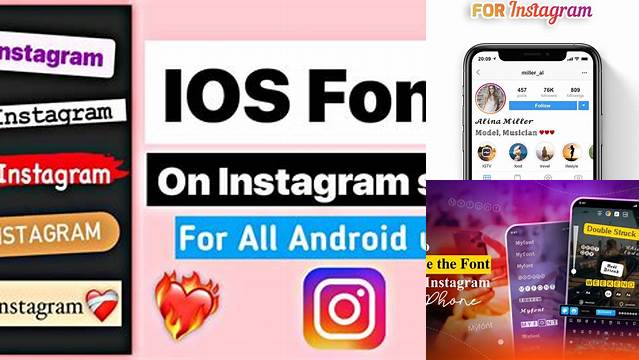
Cool Instagram Fonts: How To Use Them On Your IPhone
Hey guys! Ever wanted to spice up your Instagram game with some cool, unique fonts? You're in the right place! In this guide, we'll dive deep into the world of fonts for Instagram on iPhone. We'll cover everything from why fonts matter to how to actually use them. Let's get started!
1. Why Use Different Fonts on Instagram?
Okay, let's talk about why you should even bother with different fonts. In a sea of similar-looking posts, using unique fonts for Instagram on iPhone can make your content stand out. Think of it as adding a little bit of your personality to everything you share. Fonts can evoke different emotions and set the tone for your message, whether you're going for something fun and playful or serious and professional. Plus, it's a great way to keep your audience engaged and show off your creativity. Imagine scrolling through your feed and suddenly seeing a font that just grabs your attention – that could be your post!
2. Finding Fonts for Instagram Bio on iPhone
Your bio is like your Instagram storefront, and the fonts for Instagram on iPhone you choose play a big part in making a great first impression. You've got limited space, so make every character count! A stylish font can help highlight key information about you or your brand, making it more appealing to potential followers. The right fonts for Instagram on iPhone in your bio can also set you apart from the crowd, showing that you pay attention to detail and have a unique sense of style. Experiment with different fonts to find one that truly represents you.
3. Best Font Apps for Instagram Stories on iPhone
Instagram Stories are all about being creative and engaging, and using the right fonts for Instagram on iPhone can take your stories to the next level. There are tons of apps out there that offer a wide variety of cool fonts you can use. These apps often come with other features like templates, stickers, and animations, making it easy to create visually stunning stories that grab attention. Check out apps like Canva, Adobe Spark Post, and Hype Type for some awesome options.
4. How to Change Fonts on Instagram Captions Using iPhone
Captions are your chance to tell a story and connect with your audience. Using different fonts for Instagram on iPhone in your captions can help emphasize certain points, create a mood, or simply add some visual interest. While Instagram doesn't let you directly change fonts within the app, there are workarounds! You can use online font generators or third-party apps to create your text with the desired font, then copy and paste it into your caption. It's a simple trick that can make a big difference.
5. Cool Fonts for Instagram Posts on iPhone
Your posts are your main content, so choosing the right fonts for Instagram on iPhone is crucial. You want something that's not only visually appealing but also easy to read. Consider the overall aesthetic of your feed and choose a font that complements it. Script fonts can add a touch of elegance, while bold fonts can make a statement. Experiment with different options to see what works best for your content.
6. Using Font Generators for Instagram on iPhone
Font generators are super handy when it comes to finding unique fonts for Instagram on iPhone. These online tools let you type in your text and then generate it in a variety of different fonts. You can then copy and paste the text into your Instagram bio, captions, or stories. Some popular font generators include LingoJam, Cool Symbol, and FontGet. They're easy to use and offer a wide range of font options.
7. Stylish Fonts for Instagram Reels on iPhone
Reels are all about being trendy and engaging, and the fonts for Instagram on iPhone you use can play a big role in that. Choose fonts that match the vibe of your reel, whether it's fun and energetic or cool and sophisticated. Use animated fonts or text effects to add some extra flair. The key is to keep it visually appealing and easy to read, even when the reel is playing quickly.
8. Making Your Instagram Profile Stand Out with Unique Fonts on iPhone
Your Instagram profile is your online identity, and unique fonts for Instagram on iPhone can help you make a lasting impression. Think of your profile as a mini-website and use fonts to create a cohesive and visually appealing look. Use a consistent font style across your bio, highlights, and even your captions to reinforce your brand identity. It's all about creating a memorable experience for your visitors.
9. Free Font Apps for Instagram on iPhone
Who doesn't love free stuff? Luckily, there are plenty of free font apps available for fonts for Instagram on iPhone. These apps offer a variety of fonts you can use without spending any money. While they may not have all the features of paid apps, they're a great option for those on a budget. Check out apps like Fonts for Instagram, Cool Fonts, and Font Keyboard for some free font options.
10. How to Install Custom Fonts on iPhone for Instagram
Want to go beyond the standard font options? You can actually install custom fonts for Instagram on iPhone! This process involves downloading font files and installing them on your iPhone using a font management app. It can be a bit technical, but it gives you access to a wider range of font options. Just make sure the fonts you download are compatible with your iPhone and Instagram.
11. Best Fonts for Instagram Marketing on iPhone
If you're using Instagram for marketing, the fonts for Instagram on iPhone you choose can impact your brand image and engagement. Choose fonts that align with your brand's personality and target audience. Use fonts consistently across all your marketing materials to create a cohesive brand identity. A professional-looking font can build trust and credibility with your audience.
12. Bold Fonts for Instagram to Grab Attention on iPhone
Need to make a statement? Bold fonts for Instagram on iPhone are your go-to choice. These fonts are great for highlighting important information, creating headlines, or simply adding some emphasis to your text. Use them sparingly, though, as too much bold text can be overwhelming. A well-placed bold font can really grab attention and make your message stand out.
13. Script Fonts for Instagram to Add Elegance on iPhone
Want to add a touch of elegance and sophistication to your Instagram? Script fonts for Instagram on iPhone are the perfect choice. These fonts mimic handwriting and can add a personal touch to your posts. Use them for quotes, captions, or even your bio to create a refined and stylish look. Just make sure they're easy to read, as some script fonts can be a bit tricky.
14. Using Emojis with Fonts on Instagram on iPhone
Emojis and fonts for Instagram on iPhone go hand in hand! Emojis can add emotion, context, and visual interest to your text. Use them to break up long blocks of text, highlight key points, or simply add some fun to your posts. Just be careful not to overuse them, as too many emojis can be distracting. Find the right balance to create engaging and visually appealing content.
15. Font Size Guide for Instagram on iPhone
Font size matters! Using the right font size can make your text easier to read and more visually appealing. Consider the platform you're using (bio, caption, story) and adjust the font size accordingly. Too small, and your text will be hard to read; too large, and it might look overwhelming. Experiment with different sizes to find what works best for your content and audience.
16. Combining Different Fonts on Instagram on iPhone
Want to get creative? Try combining different fonts for Instagram on iPhone in your posts. This can add visual interest and create a unique look. Just be careful not to overdo it! Stick to two or three fonts at most, and make sure they complement each other. Use different fonts for headlines, subheadings, and body text to create a clear visual hierarchy.
17. Maintaining Font Consistency on Instagram on iPhone
Consistency is key when it comes to fonts for Instagram on iPhone. Using the same fonts across all your posts, stories, and bio can help create a cohesive brand identity. This makes your profile more recognizable and professional-looking. Choose a few fonts that represent your brand and stick to them. It's all about creating a consistent visual experience for your audience.
18. Legal Considerations When Using Fonts for Instagram on iPhone
Before you start using any font you find, it's important to consider the legal aspects. Some fonts are free to use, while others require a license. Make sure you have the right to use the font for your intended purpose, especially if you're using it for commercial purposes. Check the font's license agreement to avoid any legal issues down the road.
19. Trending Fonts for Instagram Right Now on iPhone
Want to stay up-to-date with the latest trends? Keep an eye on the trending fonts for Instagram on iPhone. These are the fonts that are currently popular and can help you create fresh and relevant content. Check out design blogs, social media groups, and font websites to stay informed about the latest trends. Just remember to choose fonts that align with your brand and target audience.
20. Matching Fonts to Your Instagram Aesthetic on iPhone
Your Instagram aesthetic is the overall visual style of your profile. When choosing fonts for Instagram on iPhone, make sure they match your aesthetic. If you have a minimalist aesthetic, choose clean and simple fonts. If you have a more vibrant aesthetic, choose bold and playful fonts. It's all about creating a cohesive and visually appealing look that represents your brand.
21. Accessibility of Fonts on Instagram for iPhone Users
When choosing fonts for Instagram on iPhone, consider accessibility. Some fonts can be difficult to read for people with visual impairments. Choose fonts that are clear, easy to read, and have good contrast. Avoid using overly decorative or stylized fonts that can be hard to decipher. Make your content accessible to as many people as possible.
22. Fonts That Reflect Your Brand Personality on Instagram via iPhone
Your brand personality is what makes your brand unique. The fonts for Instagram on iPhone you choose should reflect that personality. If your brand is fun and playful, choose fonts that are whimsical and lighthearted. If your brand is serious and professional, choose fonts that are clean and authoritative. Let your fonts communicate your brand's values and character.
23. Avoiding Font Clashes on Your Instagram iPhone Profile
Font clashes can make your profile look messy and unprofessional. To avoid this, limit the number of fonts you use and make sure they complement each other. Stick to two or three fonts at most, and choose fonts that have similar styles or weights. Use a font pairing tool to find fonts that work well together.
24. The Psychology Behind Font Choices for Instagram on iPhone
Did you know that fonts can evoke different emotions? The fonts for Instagram on iPhone you choose can influence how people perceive your brand. Serif fonts (like Times New Roman) tend to convey a sense of tradition and authority, while sans-serif fonts (like Arial) tend to convey a sense of modernity and simplicity. Consider the psychological impact of your font choices and choose fonts that align with your brand's message.
25. How Font Choice Impacts Engagement Rates on Instagram on iPhone
The fonts for Instagram on iPhone you select can influence user engagement! Visually appealing fonts can entice users to spend more time on your posts, increasing the likelihood of likes, comments, and shares. Prioritize readability and visual appeal to maximize engagement. Experiment with various font options to identify which ones resonate best with your audience.
26. Using Font Animations to Enhance Instagram Content on iPhone
Bring your text to life with font animations! Numerous apps offer animated fonts for Instagram on iPhone that can add dynamism and visual intrigue to your content. Font animations are great for capturing attention in Stories and Reels, making your message even more memorable. Explore the possibilities of animated fonts to elevate your creative content.
27. Optimizing Font Colors for Readability on Instagram on iPhone
Font color plays a vital role in ensuring readability on Instagram. Select font colors that contrast well with the background to make your text easy to read. Avoid using font colors that are too similar to the background color, as this can make it difficult to read. Use color palettes to choose font colors that complement your brand aesthetic and enhance readability.
28. Creating a Font Style Guide for Your Instagram Brand on iPhone
A font style guide is a valuable asset for maintaining consistency in your brand's visual communication. The style guide specifies which fonts to use for different purposes, such as headlines, body text, and captions. Distribute the guide among your team to guarantee everyone follows the same font guidelines, thus strengthening your brand identity.
29. Advanced Typography Tips for Instagram on iPhone
Elevate your Instagram game with advanced typography techniques. Try adjusting letter spacing (kerning), line height (leading), and text alignment to create visually pleasing and professional-looking content. Explore different typographic techniques to add depth and sophistication to your posts. The little things can make a big difference!
30. Future Trends in Instagram Fonts for iPhone
The world of typography is constantly evolving, so stay tuned for future trends in fonts for Instagram on iPhone. Keep an eye on emerging font styles, innovative text effects, and creative ways to use typography in your content. Embracing future trends can keep your Instagram feed fresh, relevant, and engaging. Let's keep experimenting!